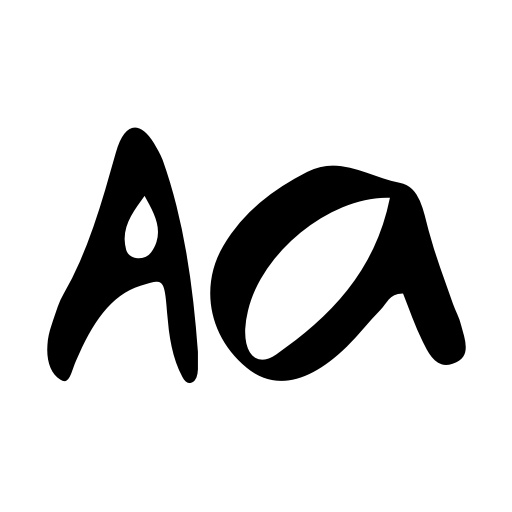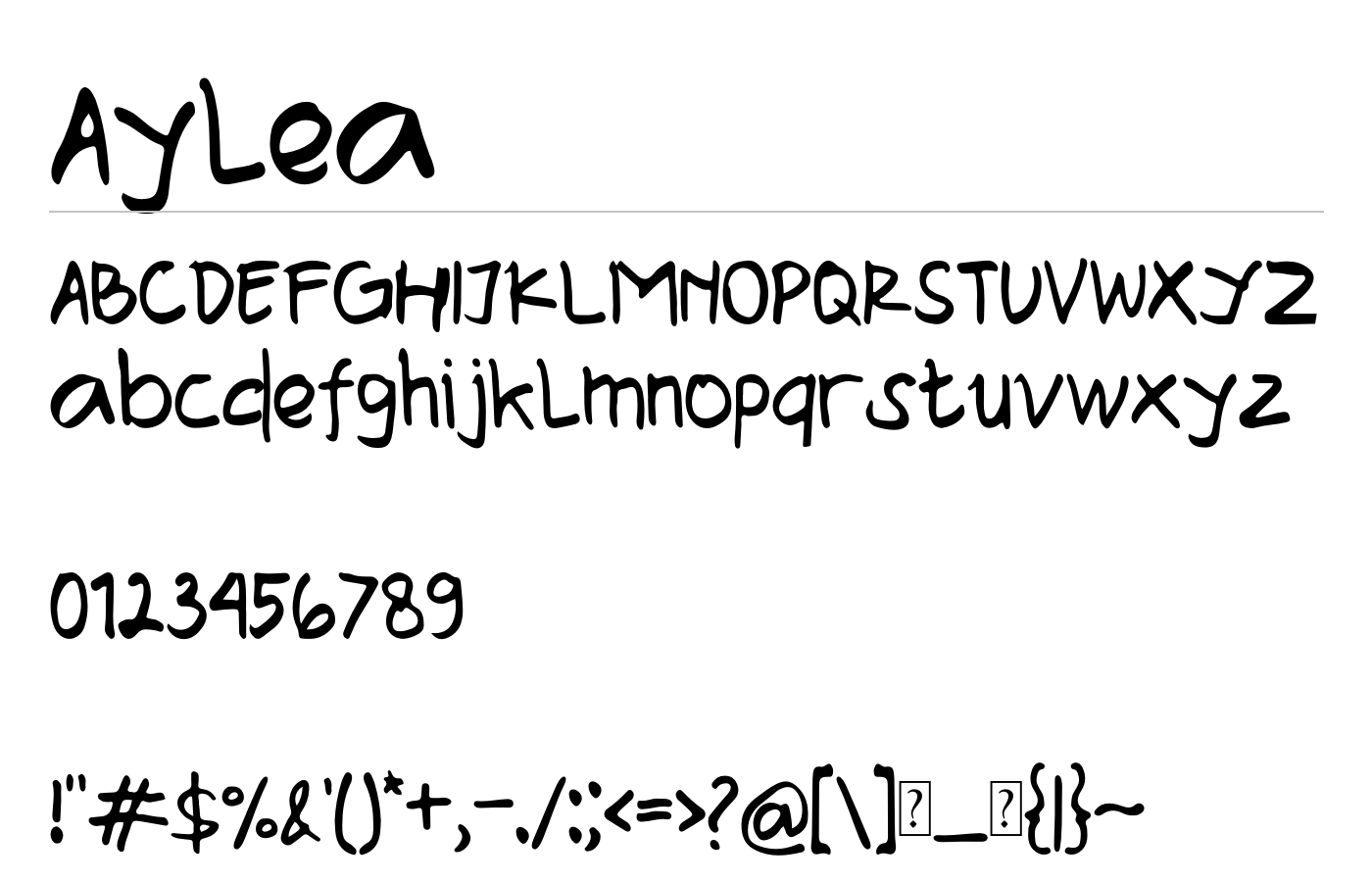
Aylea is a casual, playful sans serif font with a handwritten feel, featuring irregular, slightly rounded letterforms that evoke a friendly and approachable tone. Its moderate weight and open spacing make it highly legible, perfect for informal or creative projects like children's books, casual branding, and fun posters. This font works especially well where a warm, personal touch is needed, adding charm without sacrificing clarity.
Aylea Font
About Aylea Font
| Font family | Aylea Font |
| Designer | Afif Hidayat Alhabsi |